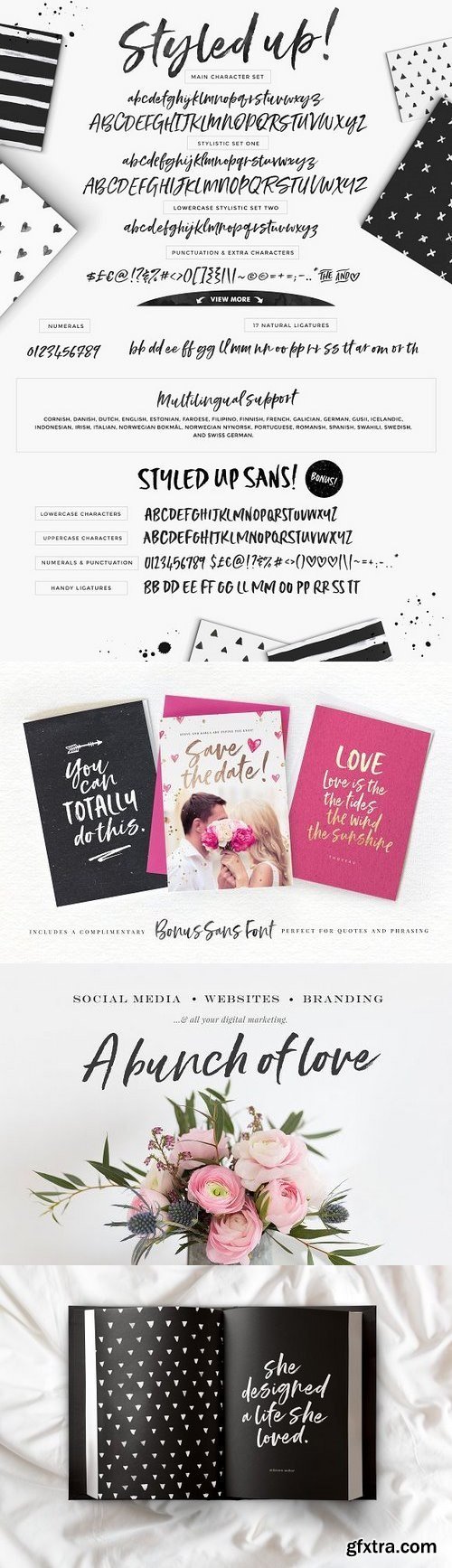
CM - Styled up!Brush Calligraphy Font Duo 1318484
Are you looking for a font that says "I'm unique"? Say hello to Styled up! A new authentic hand-brushed, modern calligraphy font with a stylish flair and a quirky personality. "Styled up!" comes with a complimentary sans font, perfect for when you need to add extra text in those stubborn empty spaces in your type designs. Styled up! is super special in that it creates completely unique and individual designs - you can write one line in a million different ways thanks to 2 sets of extra alternate lowercase letters and an extra set of Uppercase alternate letters. Styled up! also comes with a comprehensive set of double letter ligatures to make your designs look even more naturally written. It has multilingual support for the following countries: Danish, Dutch, English, Estonian, Faroese, Filipino, Finnish, French, Galician, German, Icelandic, Irish, Italian, Norwegian Bokmål, Norwegian Nynorsk, , Portuguese, Spanish, Swedish, and Swiss German. Styled up! is perfect for any project needing a unique hand lettered touch - branding, greeting cards, logos, websites, wedding signage, printables, and super stylish merch. No special software is required to access any of the standard or alternate letters - the extras letters are provided in the form of 2 extra fonts for your convenience :)